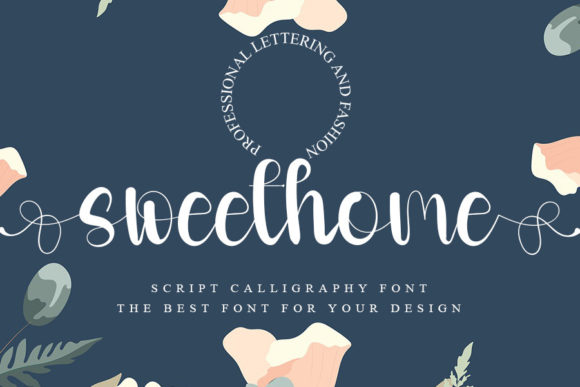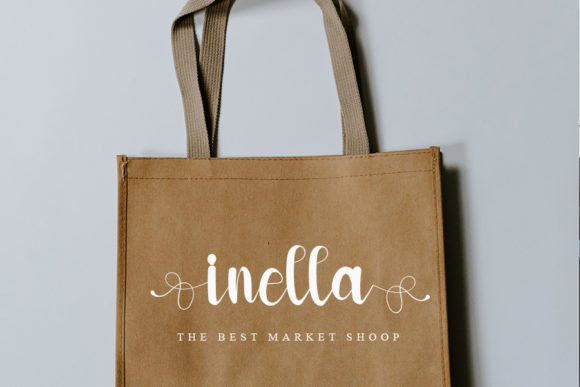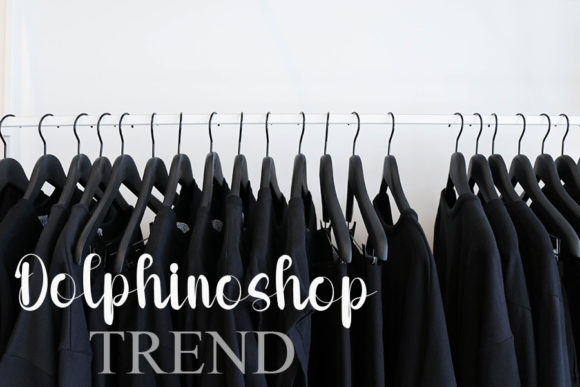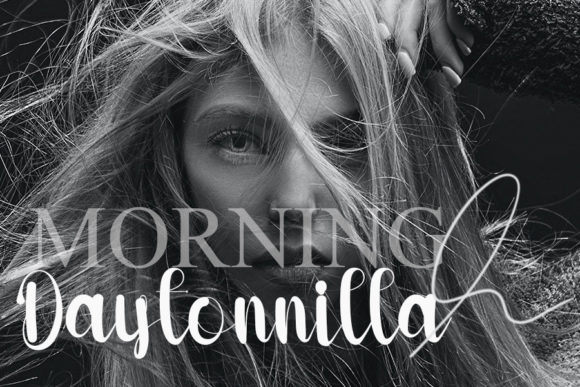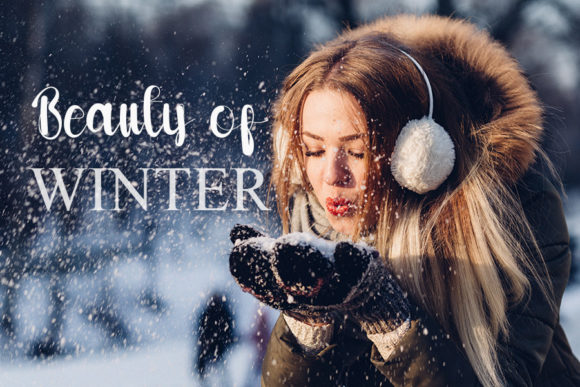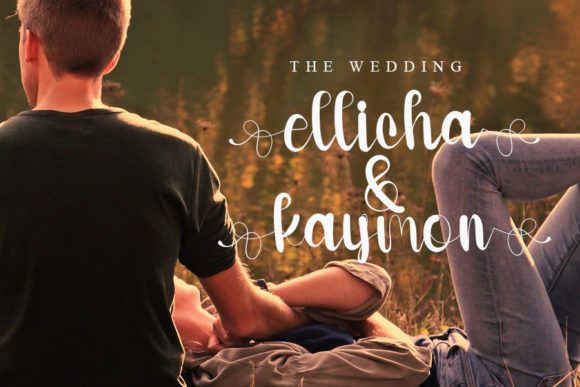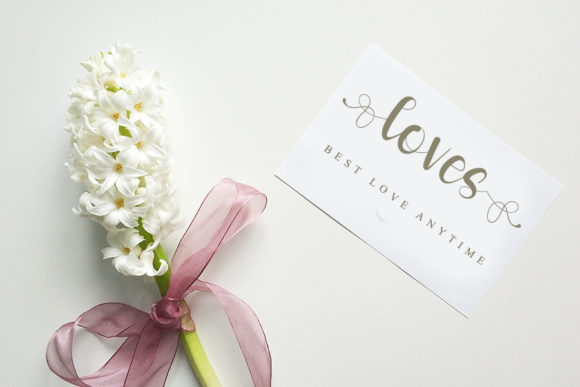
Sweethome Font
About Sweethome Font
Sweethome is a beautiful and sweet calligraphy typeface that brings a delightful charm to your designs. With its characters dancing along the baseline, this font has a casual yet elegant touch that adds a touch of whimsy and grace.
The flowing and graceful letterforms of Sweethome create a sense of movement and playfulness. Each letter is carefully crafted to showcase the natural beauty of calligraphy, adding a touch of sophistication to your projects. Whether you’re designing wedding invitations, quotes, branding materials, or any other creative endeavor, Sweethome will elevate your designs and create a visually pleasing impact.
Sweethome’s casual elegance makes it suitable for a wide range of applications. Whether you’re working on print materials, digital designs, or any other medium, this font will bring a touch of beauty and sweetness to your projects.
Embrace the beautiful and sweet nature of Sweethome and witness how it enhances your designs with its charming calligraphy style. Incorporate this font into your projects and let your creativity shine.